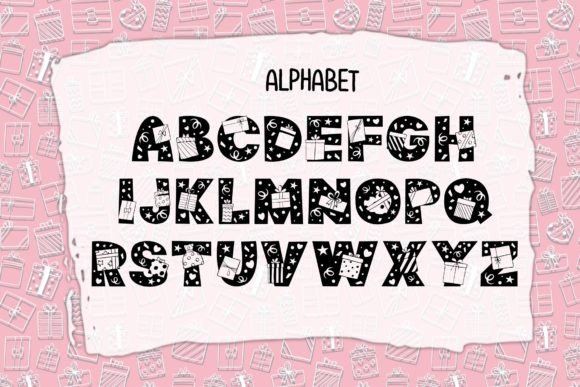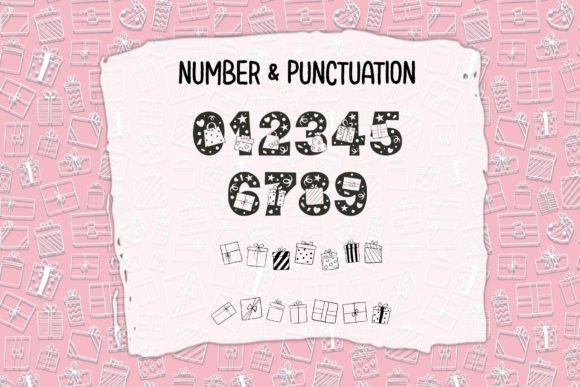
Introduction to Hello Gifts Font
Do you remember the moment when you stumbled upon the perfect font to elevate your creative project? The moment when all the pieces fell into place, and your design transformed into something truly special? That’s exactly what happened when I discovered the Hello Gifts Font.
With its high-quality, adorable design, this font is a game-changer for any creative endeavor. Whether you’re designing a logo, branding for a social media campaign, or crafting a DIY project, the Hello Gifts Font is the perfect design resource to bring your vision to life. And the best part? It’s available for a free download, making it an invaluable addition to any designer’s toolkit.
As a designer, you understand the importance of having access to a wide range of design resources. The Hello Gifts Font is a valuable asset that can help you take your projects to the next level, with its transparent background and versatile style making it perfect for any creative project.
Hello Gifts Font
- High-quality design with a transparent background, ideal for creative projects.
- Features a unique, modern design that is perfect for greeting cards, gift tags, and other paper crafts.
- Designed with a clear, legible font style, making it suitable for various text sizes and resolutions.
Honest Review: Hello Gifts Font
I recently had the chance to work with the Hello Gifts Font, and I must say it’s a wonderful addition to any designer’s toolkit. One of the standout features is its high quality, making it perfect for any creative project.
One of the things that really caught my attention is the transparent background, which makes it super easy to use in any design scenario.
- High-quality design that’s perfect for creative projects ✨
- Transparent background for easy use ✨
- Limited character set, which may not be ideal for longer text-based projects ⚠️
- Not suitable for print projects that require a high level of precision ⚠️
Overall, I’m really impressed with the Hello Gifts Font. It’s a great addition to any designer’s toolkit, and I would definitely recommend it for creative projects. Just be aware of its limitations, and you’ll be all set for a successful design project.
The Hello Gifts Font is perfect for various creative projects, including greeting cards, gift tags, social media graphics, logos, presentations, and documents. Its high-quality design and transparent background make it an ideal design resource for any project.